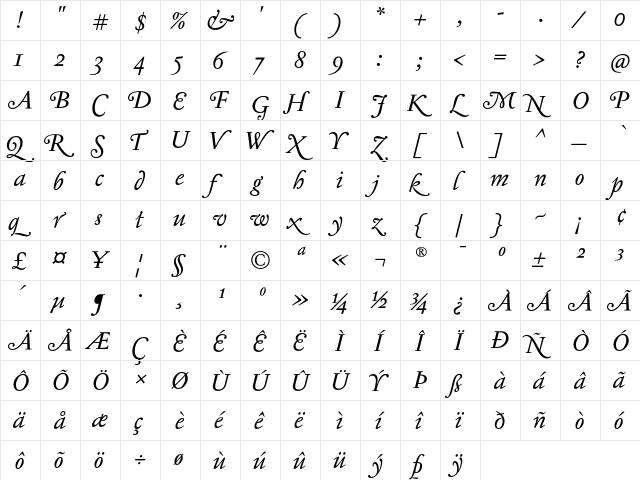
Jannon T Moderne Swash Regular
Design Context for Jannon T Moderne Swash Typeface
Jannon T Moderne Swash flows with the natural rhythm of handwritten lettering, making it ideal for designs that call for warmth and personal expression.
Font Pairing: Combine Jannon T Moderne Swash with a simple geometric sans for maximum contrast — the tension between flowing curves and clean structure is a classic typographic pairing.
Pro Tip: Use Jannon T Moderne Swash for short runs of text — names, titles, or taglines. Extended body copy in script faces tires the eye quickly.